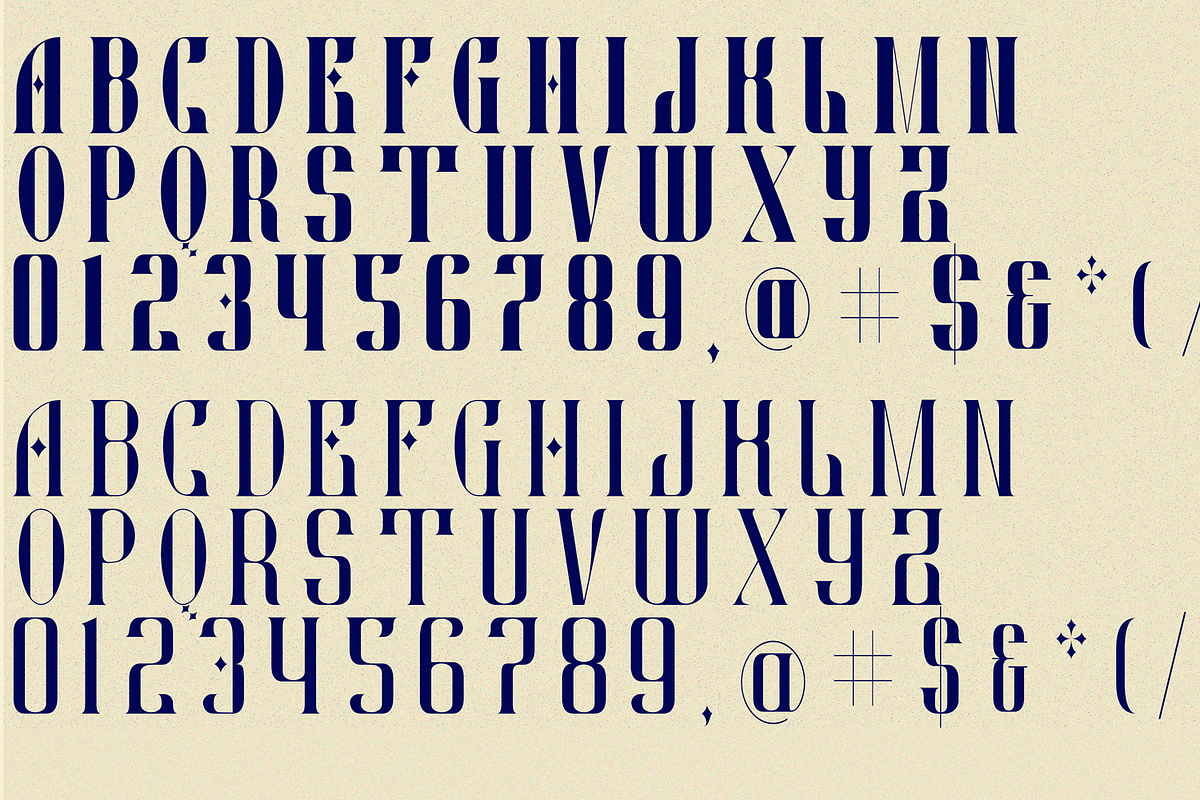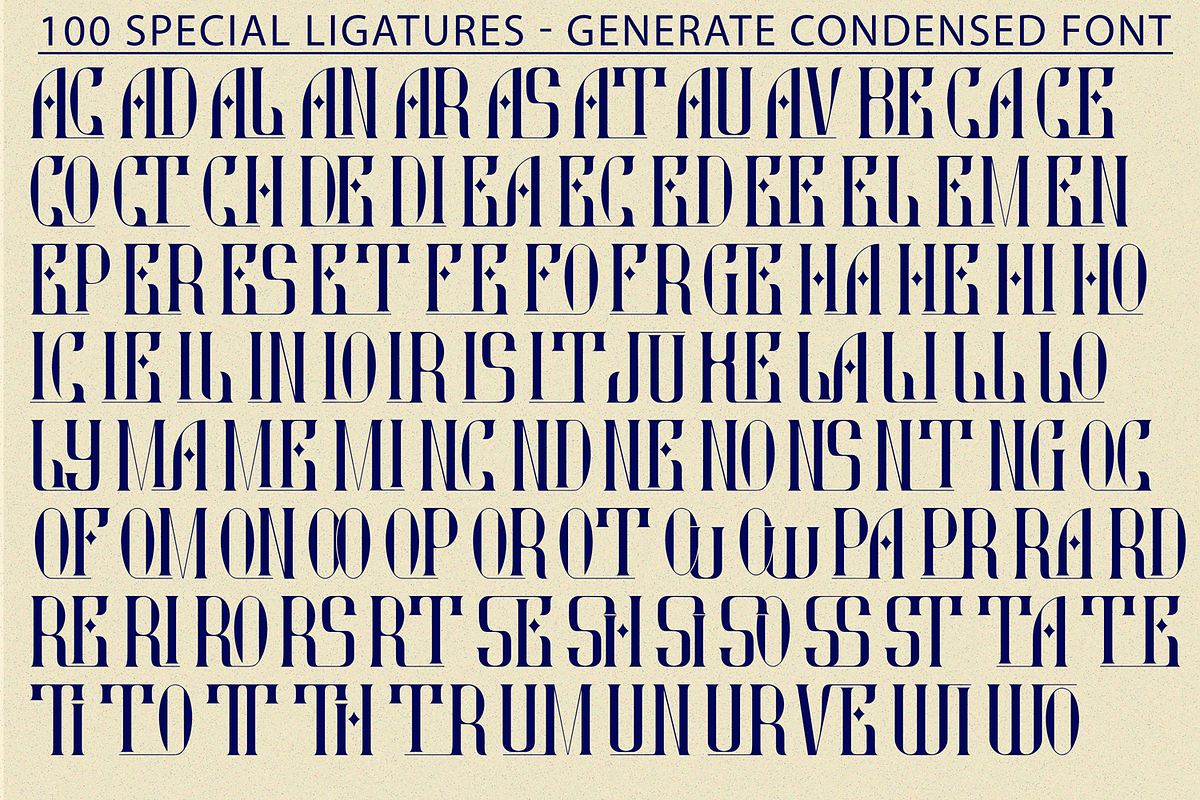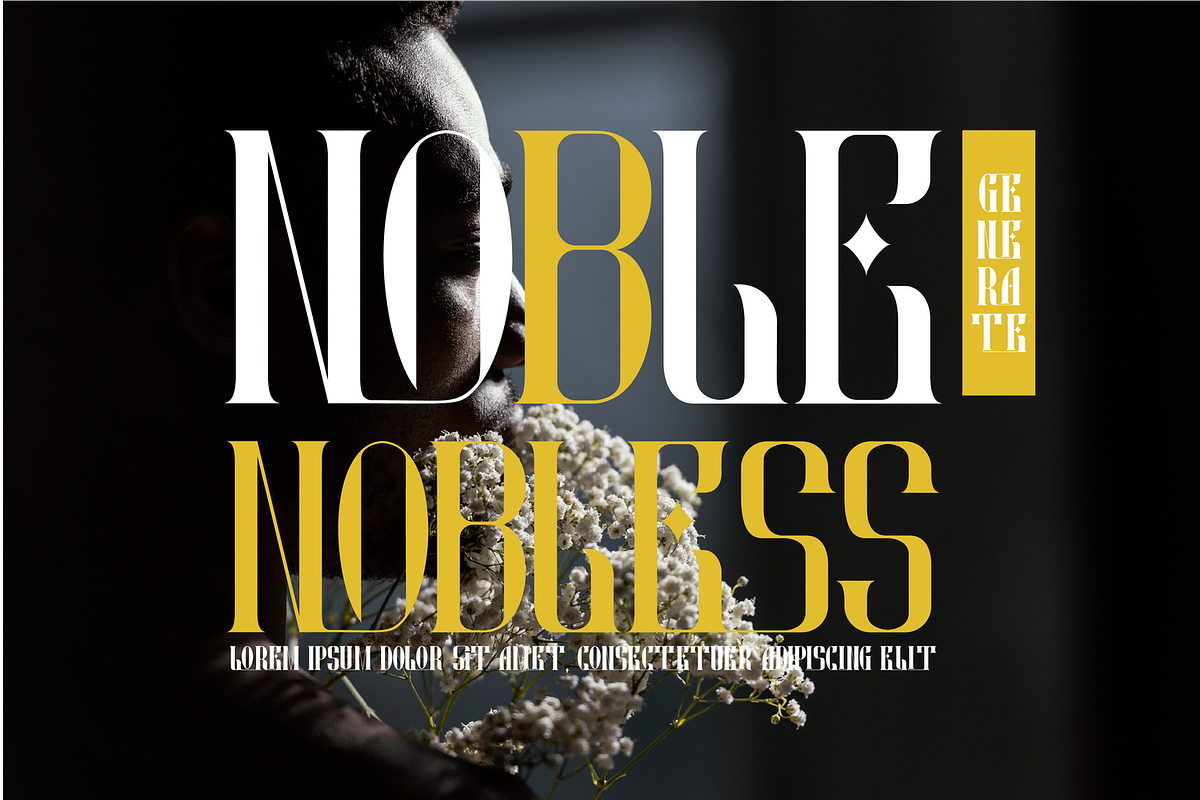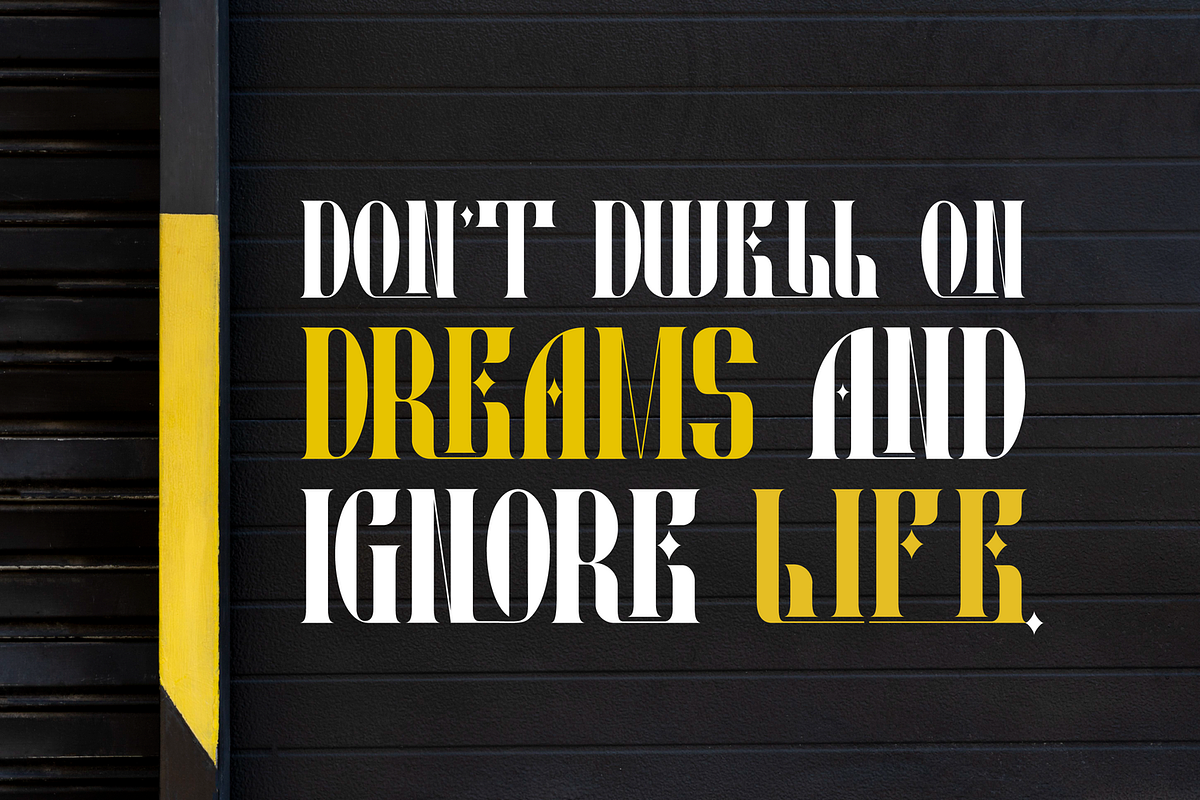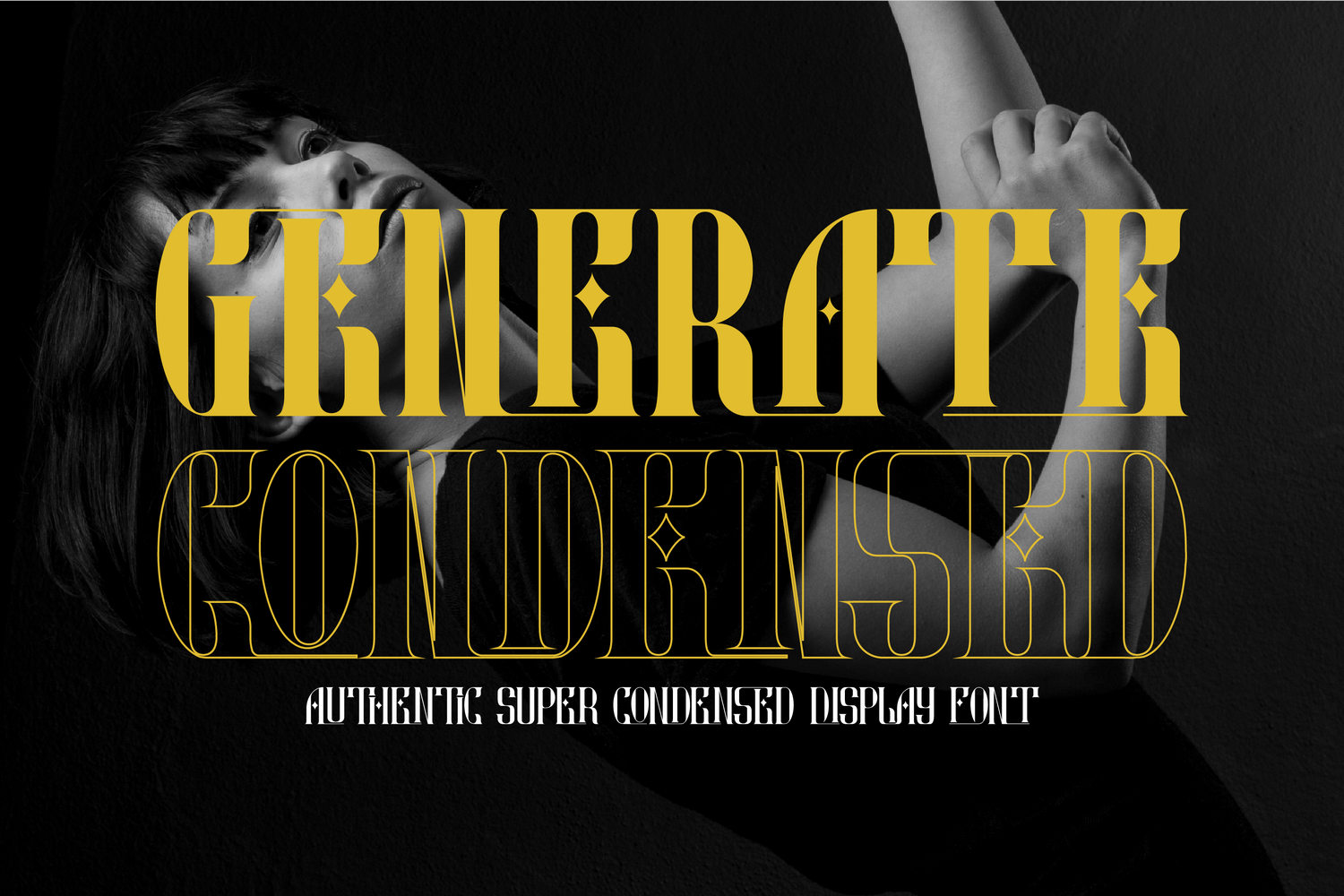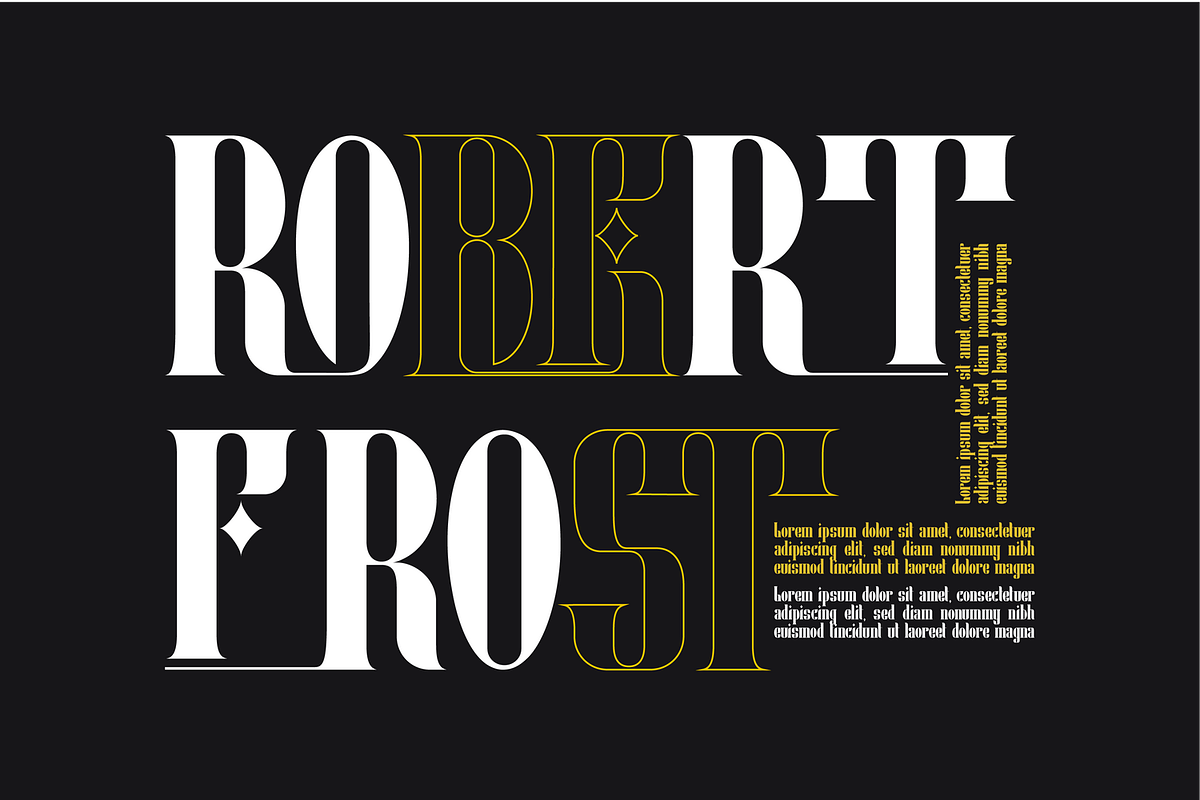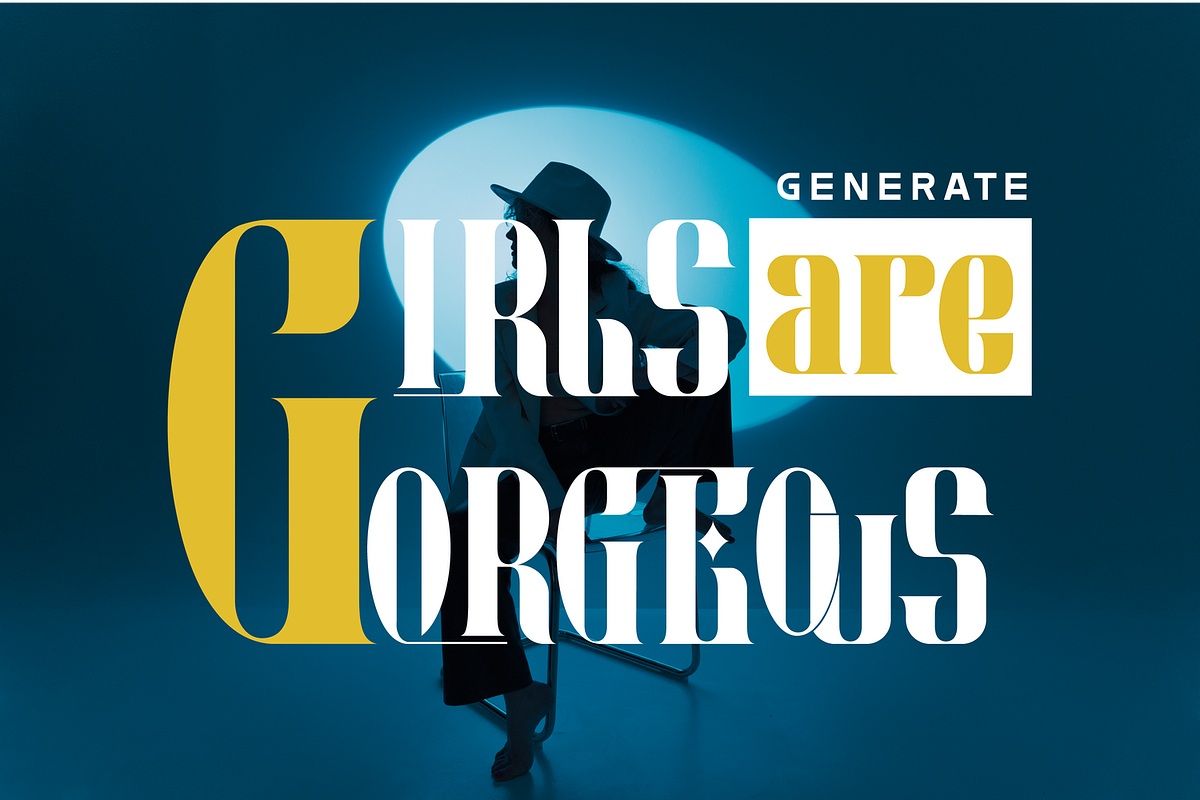
GENERATE CONDENSED FONT
GENERATE CONDENSED FONT is a condensed serif typeface created to be used for bold titles with distinctive shapes into a display fonts way to make it legible for contemporary use. It's an extra condensed grotesque, made with its own unique character and form of typeface. It's a massive font that will grab the attention. This typeface is perfect for an brand logo, fashion stuff, clean design, magazine cover, poster & flyer, or simply as a stylish text overlay to any background image.
GENERATE Condensed was built with OpenType features and includes 100 ligatures, alternate, numbers, punctuation, and it also supports other languages.
AC AD AL AN AR AS AT AU AV BE CA CE CH CO CT DE DI EA EC ED EE EL EM EN EP ER ES ET FE FO FR GE HA HE HI HO IE IC IL IN IO IR IS IT JU KE LA LE LI LL LO LY MA ME MI NC ND NE NG NO NT NS OC OF OM ON OO OP OR OT OU OW PA PR RA RD RE RI RO RS RT SE SH SI SO SS ST TA TE TH TI TO TR TT UM UN UR VE WI WO
This font also included full set of:
- Special Ligatures